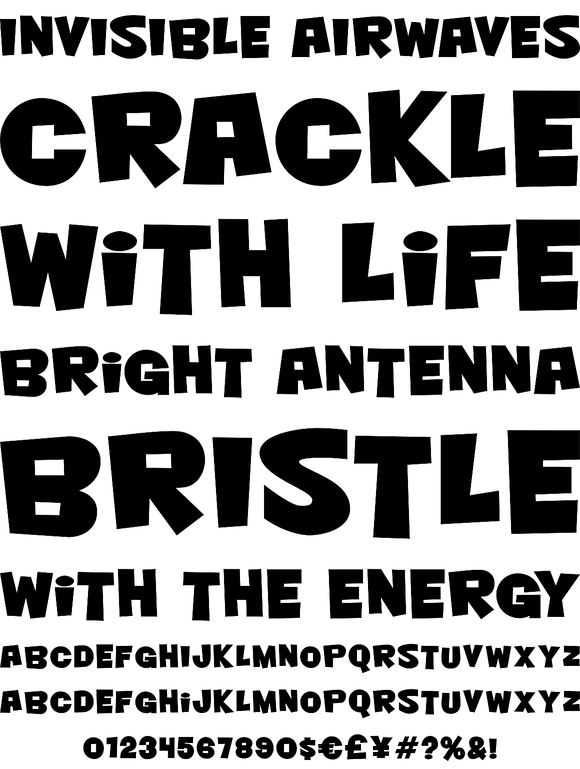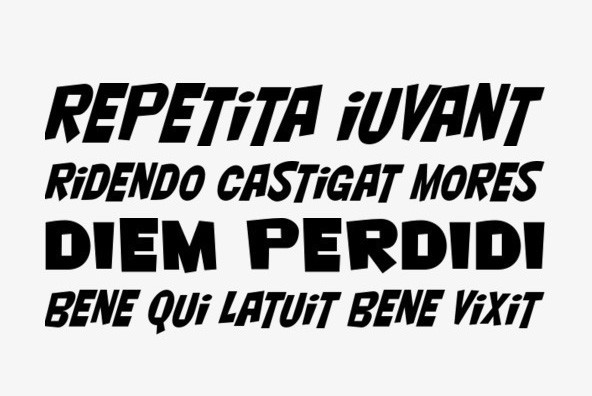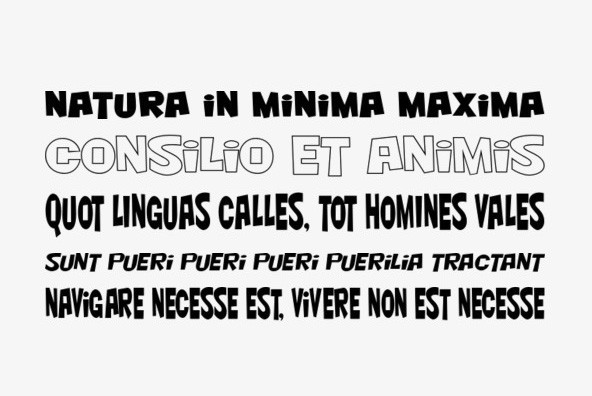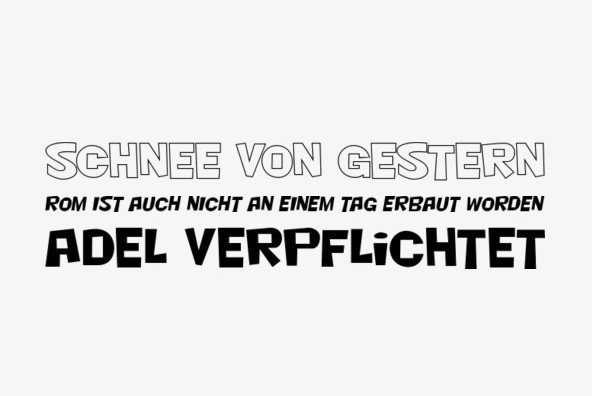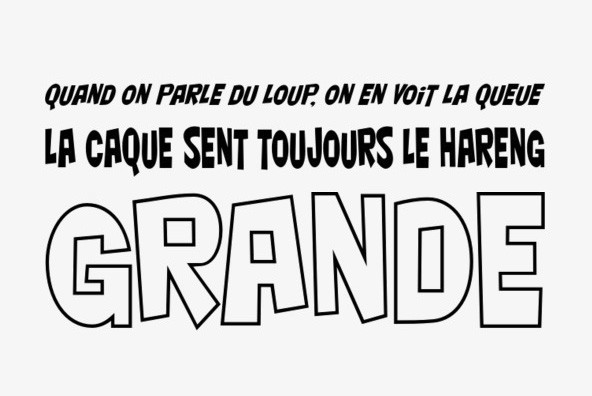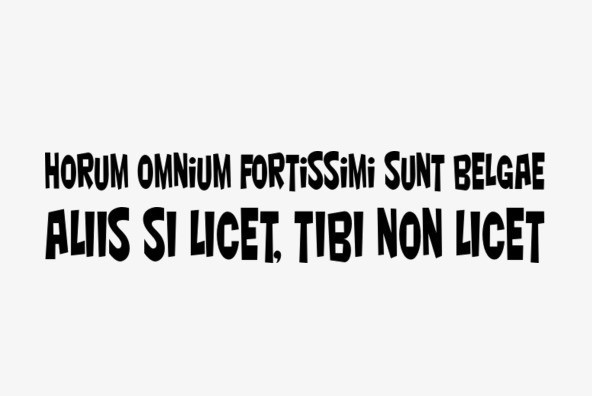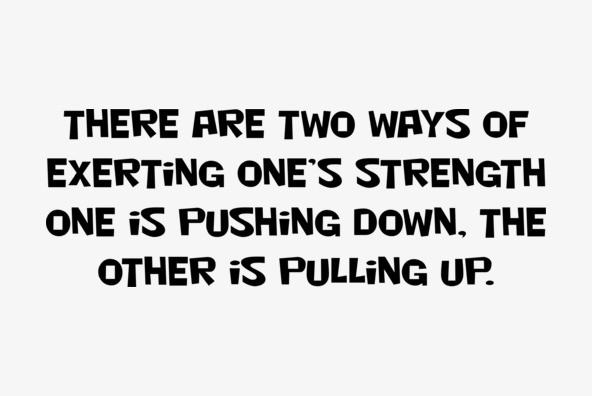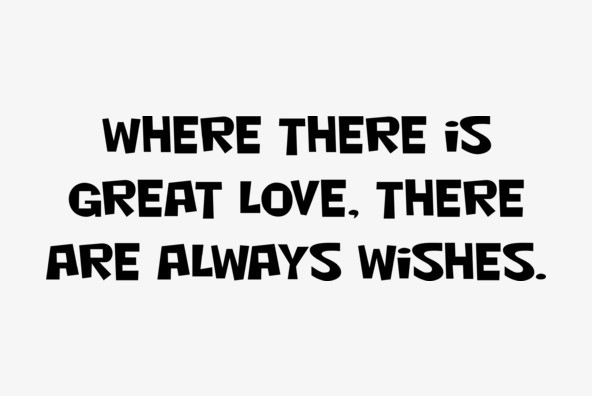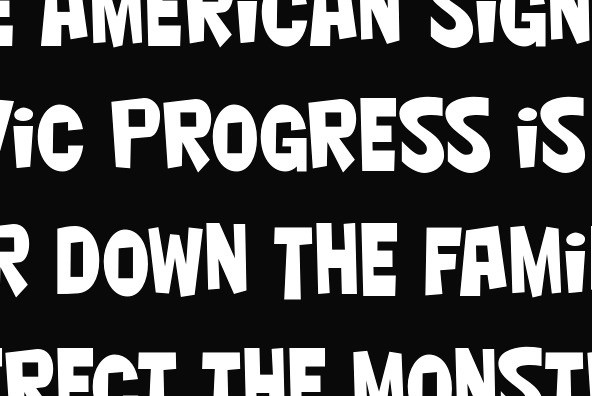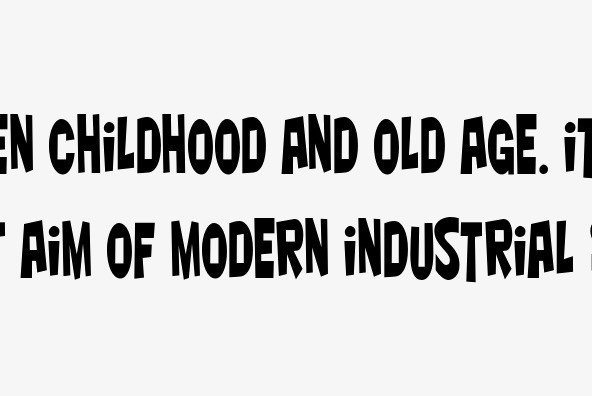
Night Club
Foundry: Breaking The Norm
Night Club is a fresh take on an old typeface originally called Ad Lib, complete with it's own set of roudy characters.